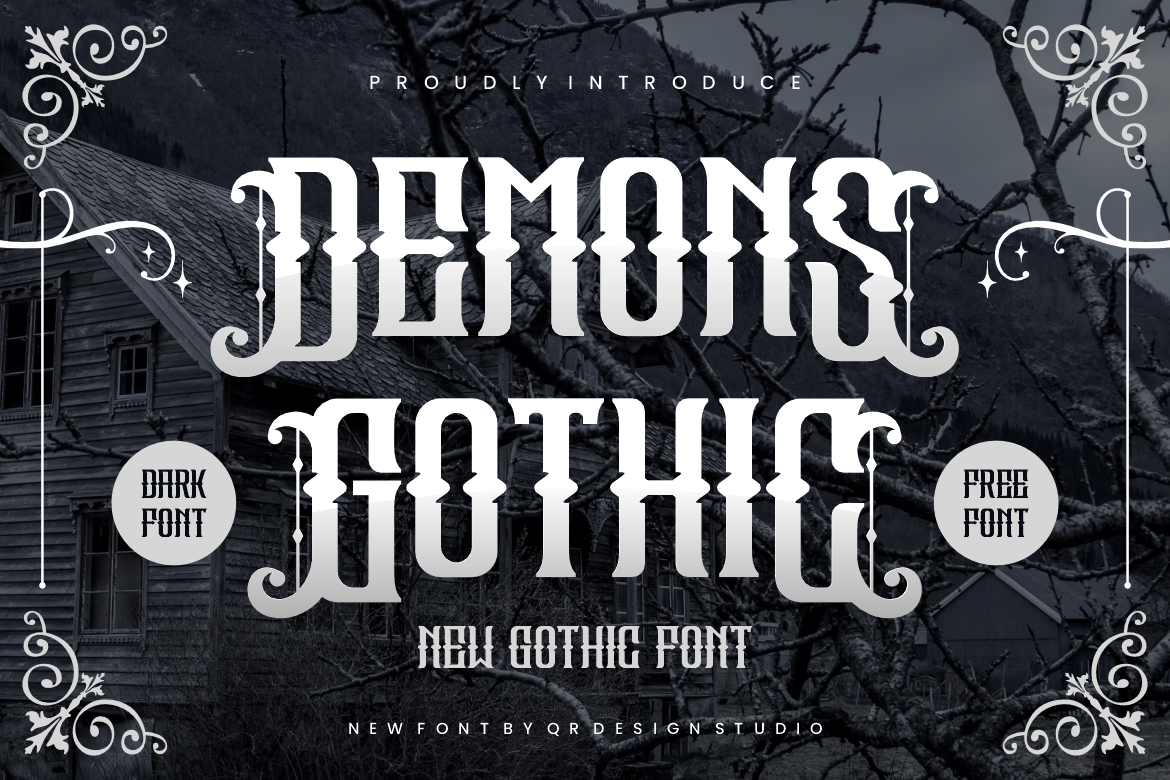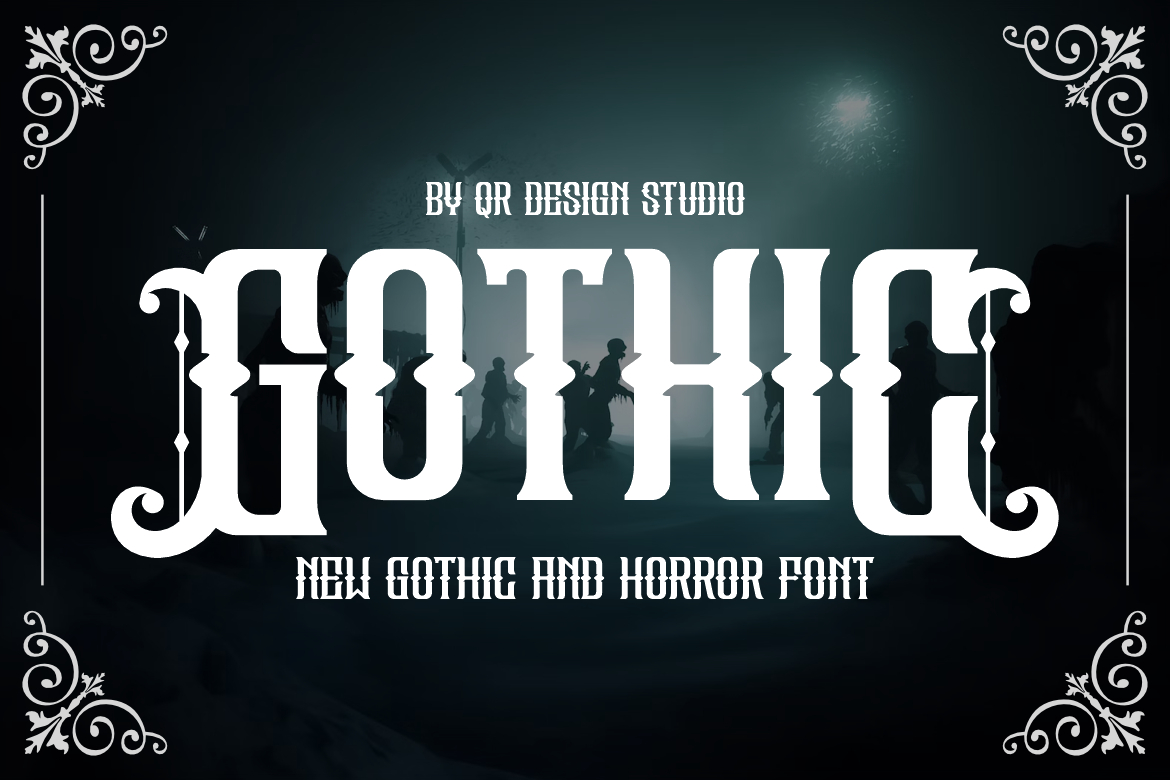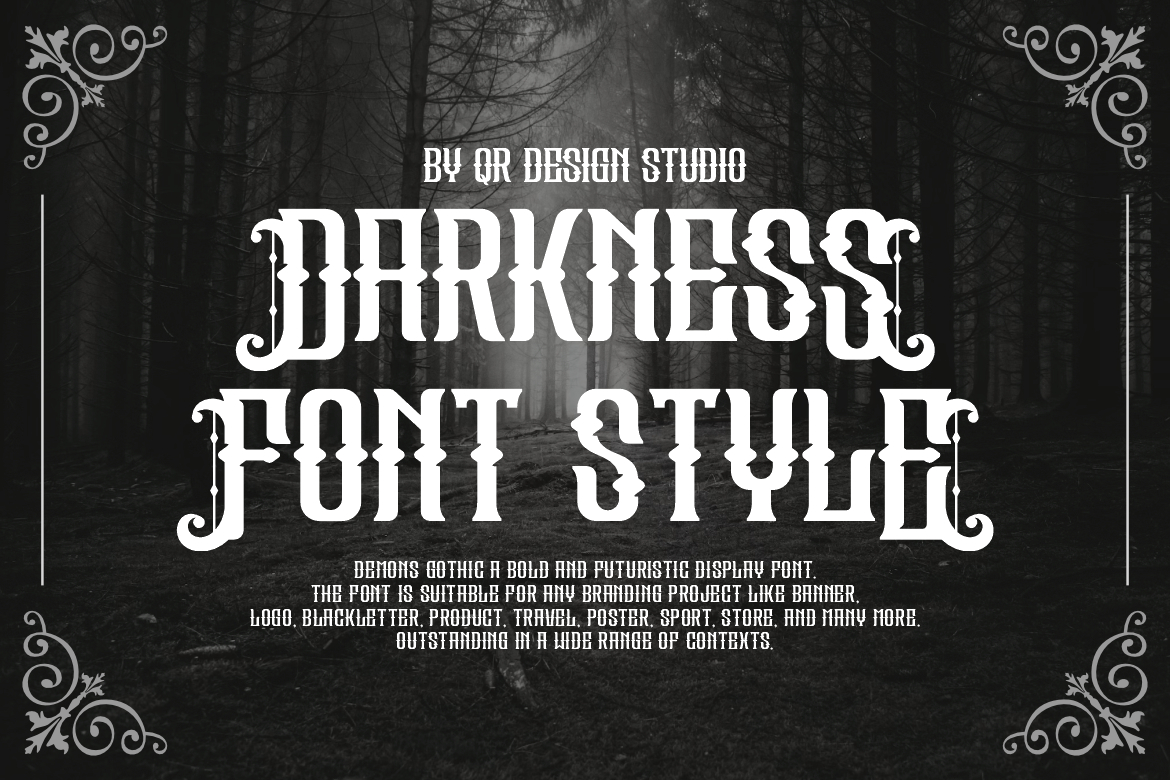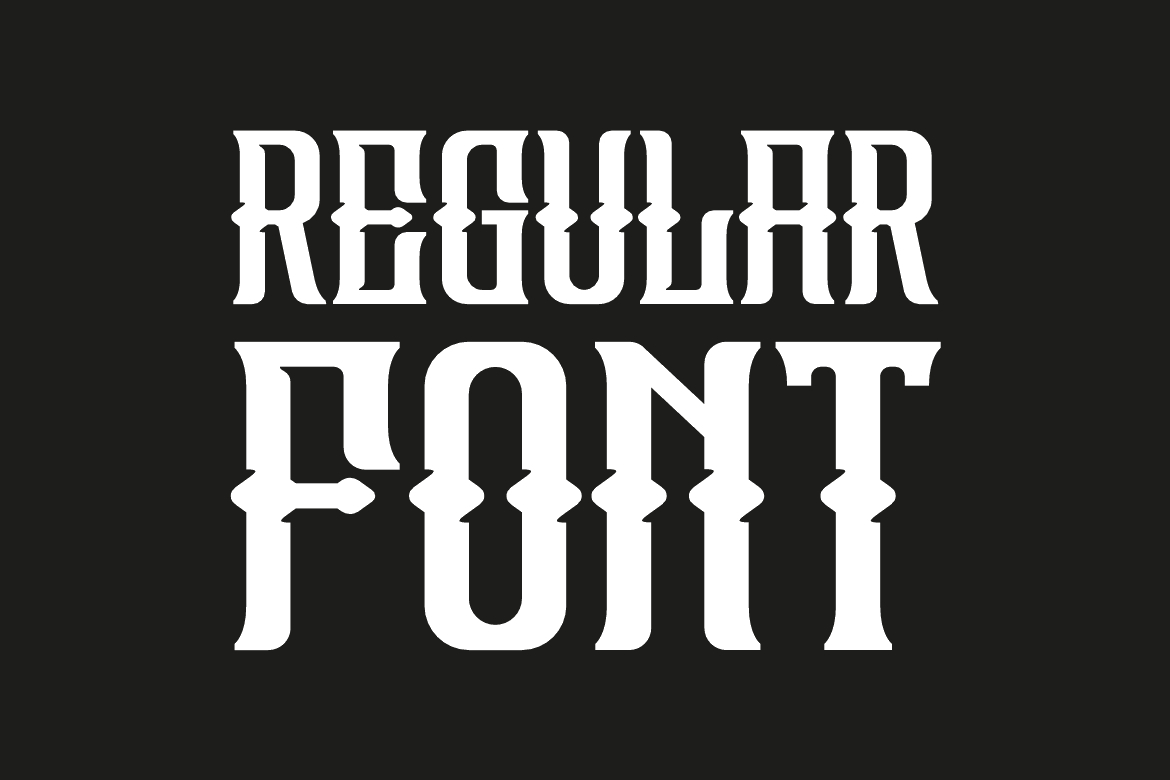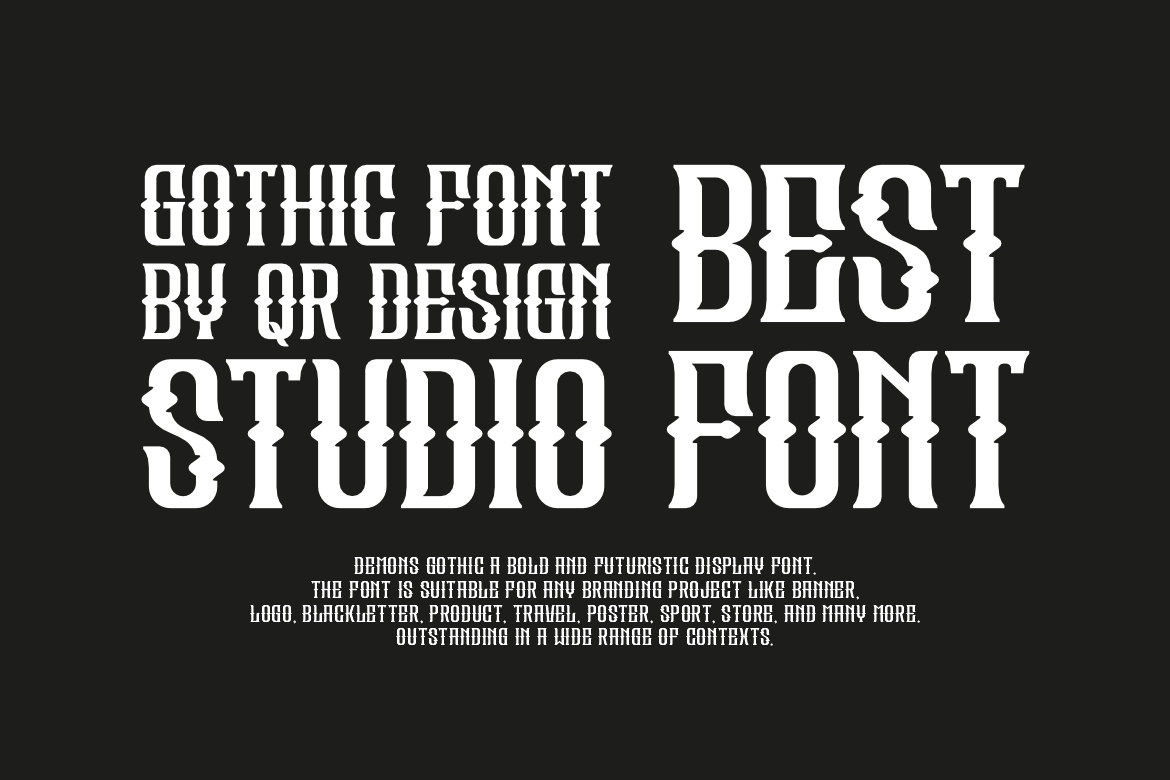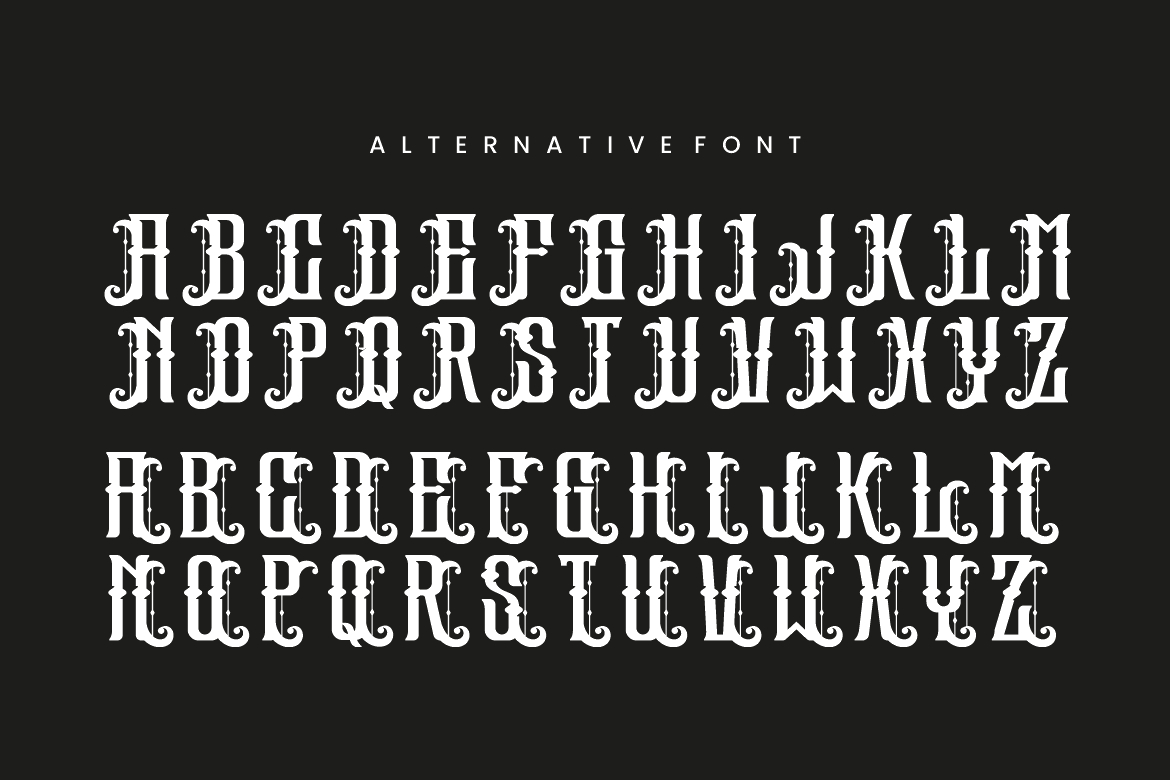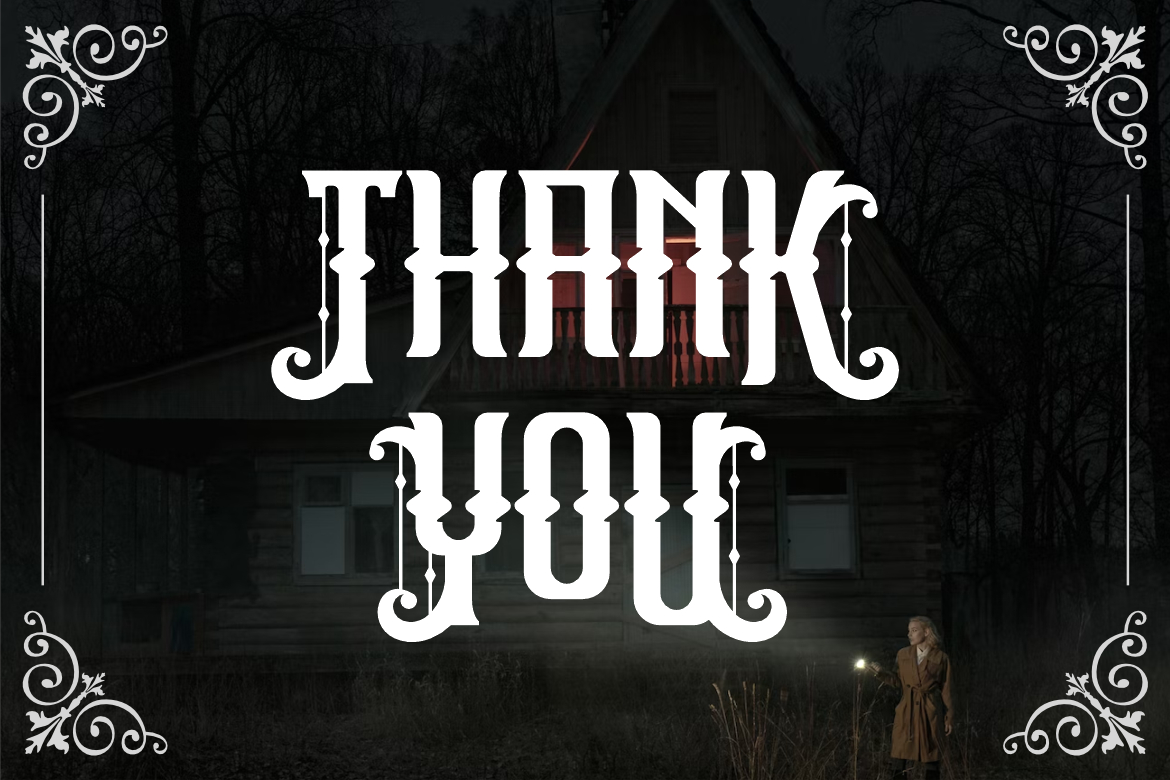
Demons Gothic Font
About Demons Gothic Font
Demons Gothic Font is a bold and authentic display font.
The font is suitable for any branding project like poster, gothic, black style, dark style, metal, logo, sport, and many more.